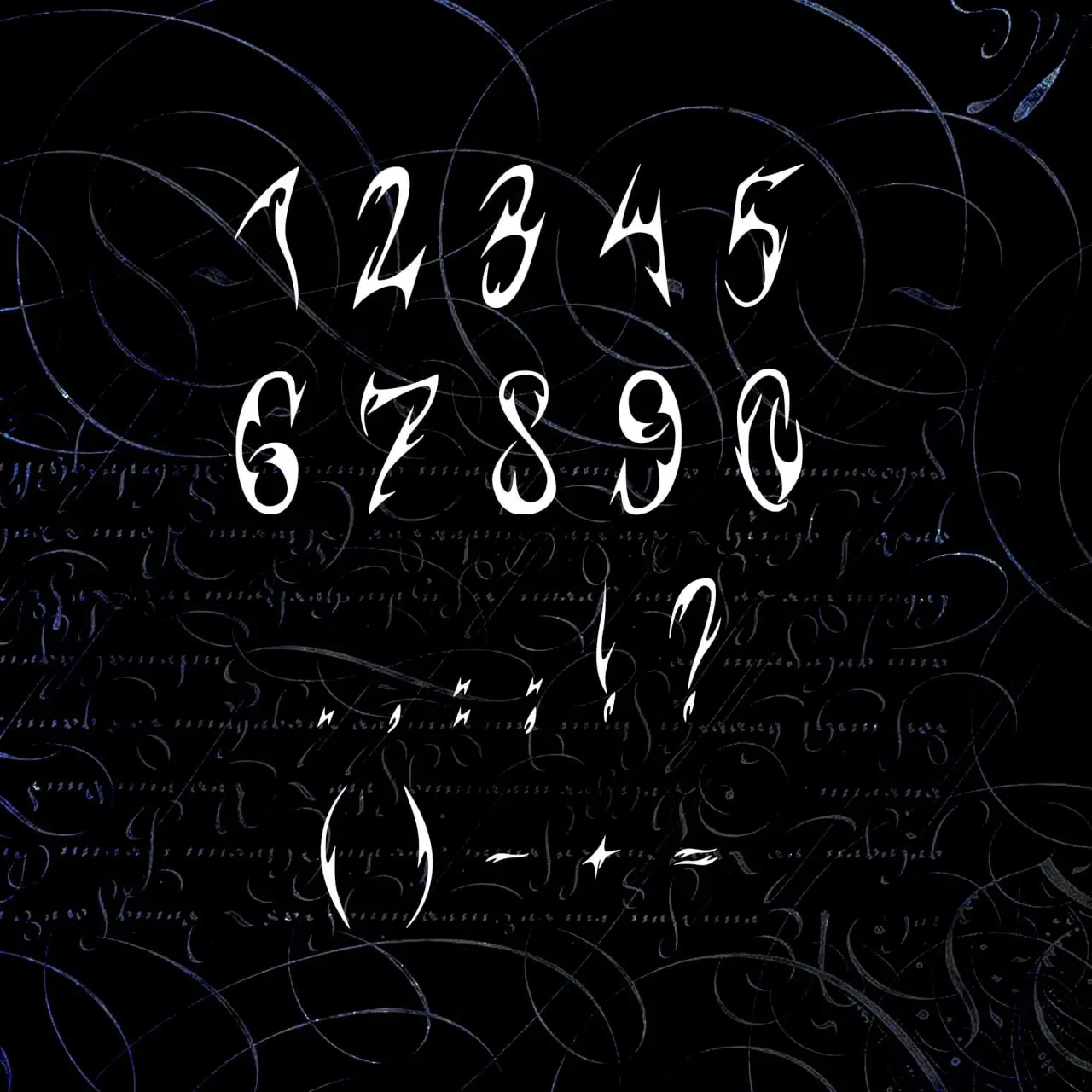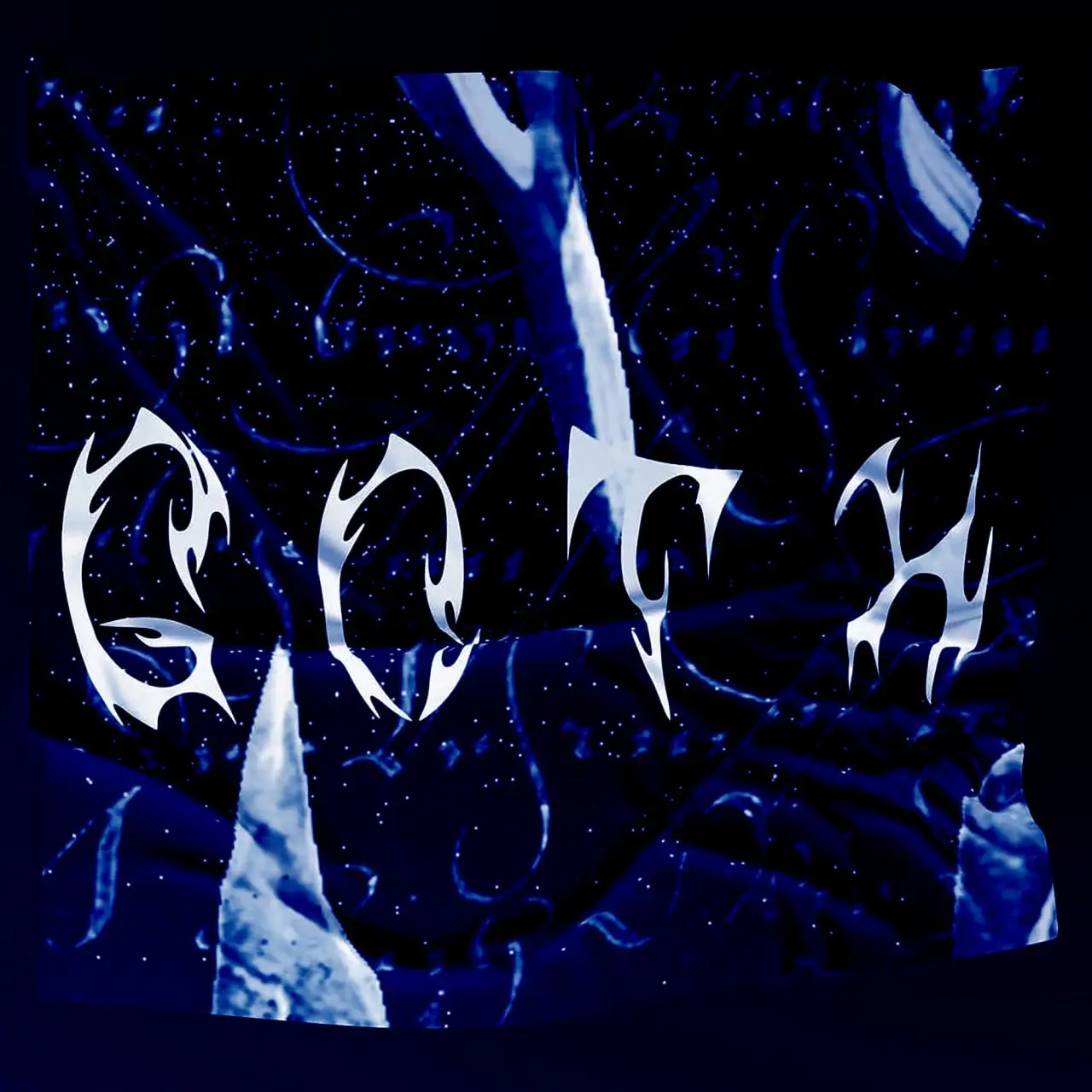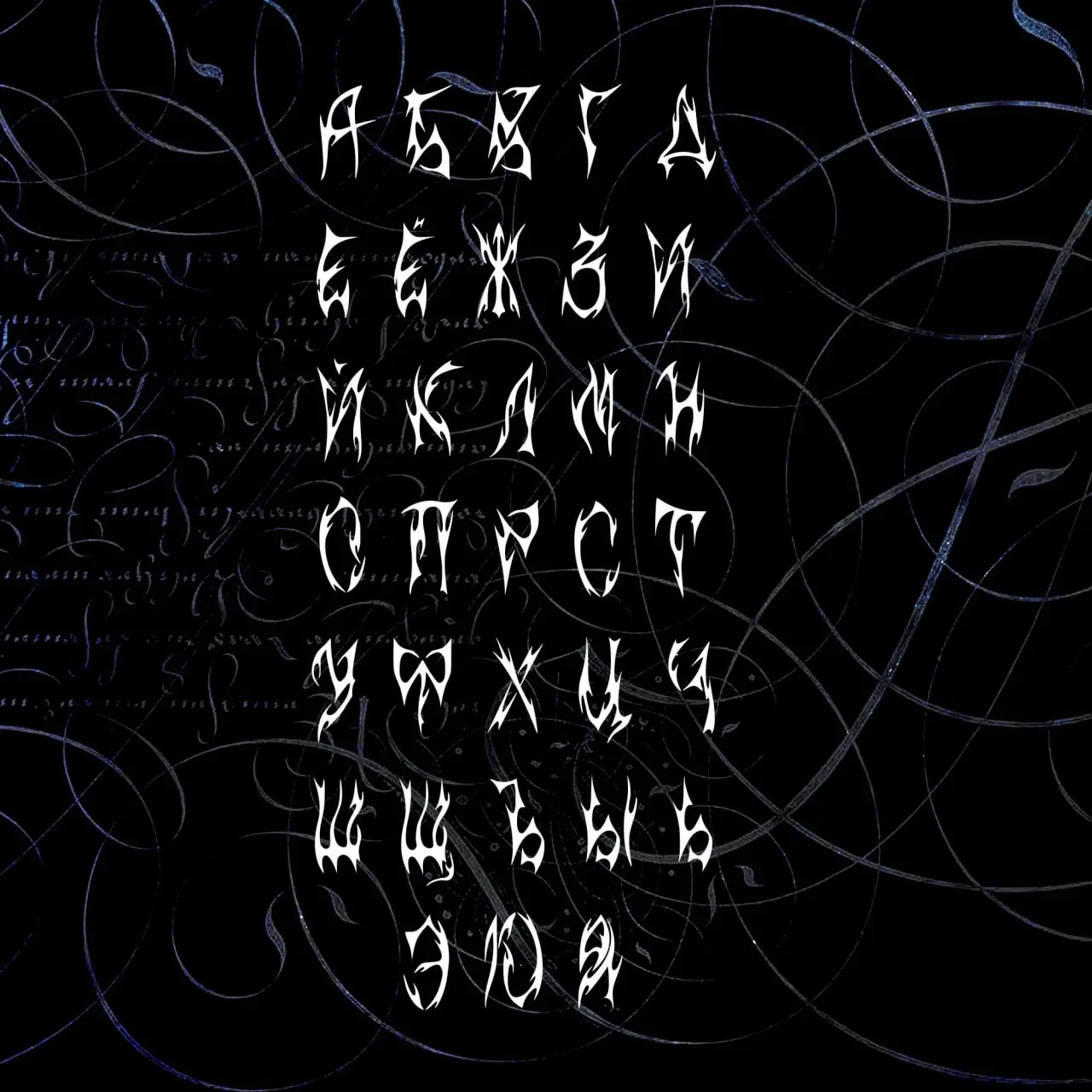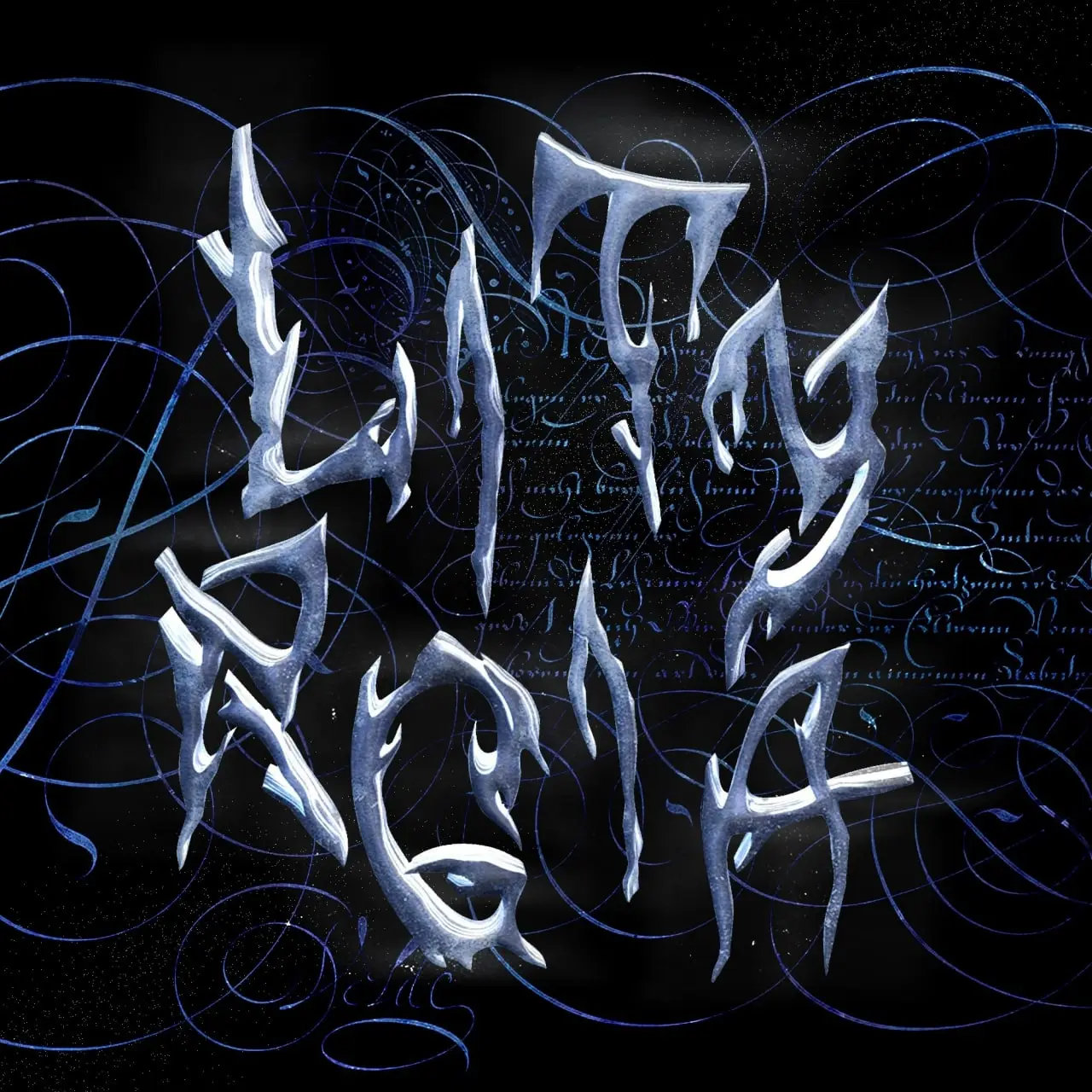
Liza Kazaeva (Kravitz)-Liturgia Font
The Liza Kazaeva (Kravitz)-Liturgia Font is a beautifully crafted typeface that combines elegance with modern design. This font is perfect for a variety of applications, including branding, logos, web design, and print materials. Its unique style adds a distinctive touch to any project.
• Utilize this font for eye-catching headlines and titles.
• Incorporate it into your branding for a cohesive look.
• Use it in digital and print media for an elegant touch.